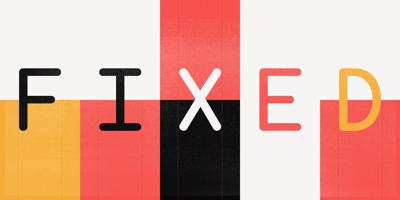
Yamada Font
Yamada Font is perfect for various design applications including logo design, branding projects, poster creation, magazine layouts, book covers, website headers, social media graphics, packaging design, business cards, and artistic typography projects. Its versatile character makes it suitable for both digital and print media.
What makes Yamada Font exciting is its unique blend of modern sophistication and traditional elegance. The font features carefully crafted letterforms that strike the perfect balance between readability and visual appeal. Its distinctive character spacing and proportions create a harmonious flow that captures attention while maintaining professional aesthetics. The font's versatility allows designers to create compelling visual narratives that resonate with diverse audiences.
Yamada Font family includes multiple weights and styles such as Regular, Bold, Light, Medium, Italic variations, and potentially condensed or extended versions. Each family member maintains the core design philosophy while offering different visual intensities to meet various design requirements and hierarchical needs in typography projects.
This premium typeface stands out in the competitive font landscape due to its exceptional craftsmanship and attention to detail. Yamada Font Free Download provides designers with an opportunity to explore its potential before making a commercial investment. The font's clean lines and sophisticated curves make it an excellent choice for contemporary design projects that demand both elegance and functionality.
Whether you're working on corporate branding, editorial design, web interfaces, or creative campaigns, Yamada Font delivers consistent performance across all platforms. Its OpenType features and extensive character set support multiple languages, making it ideal for international projects. The font's scalability ensures crisp rendering at any size, from small body text to large display applications.
The design philosophy behind Yamada Font emphasizes clarity and visual impact without sacrificing legibility. This makes it particularly valuable for projects where clear communication is essential while maintaining aesthetic appeal. Professional designers and creative agencies will appreciate the font's ability to enhance brand identity and create memorable visual experiences.